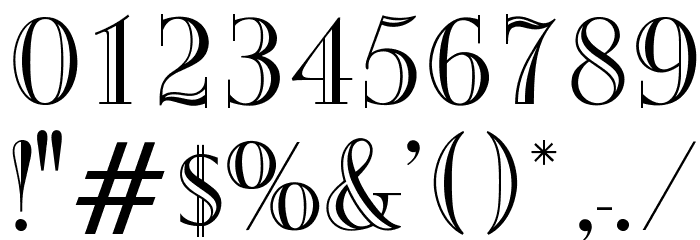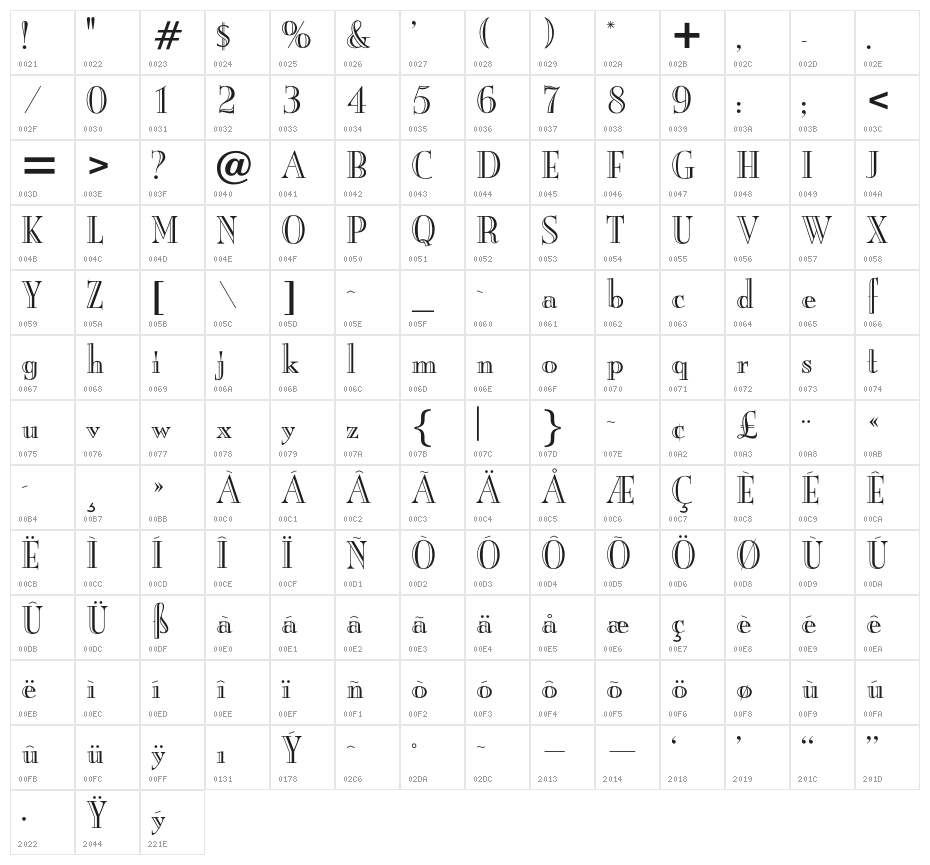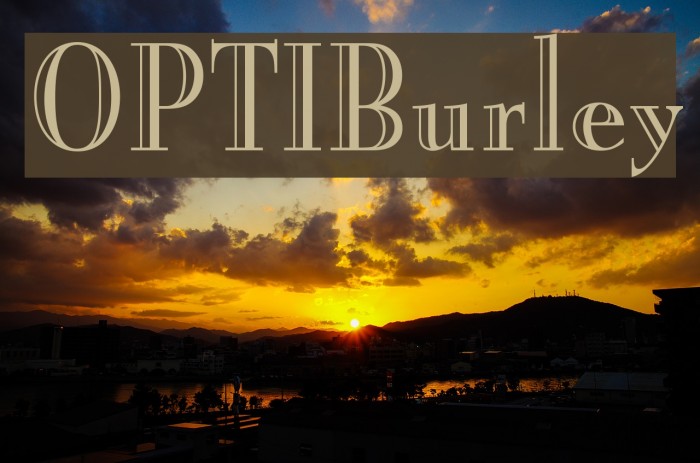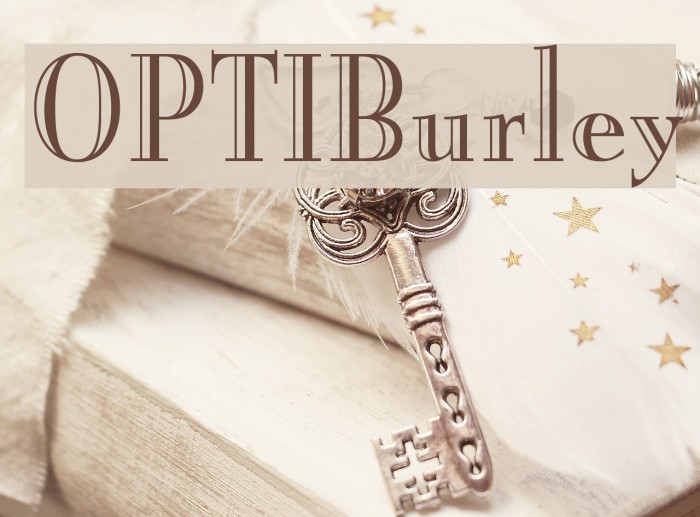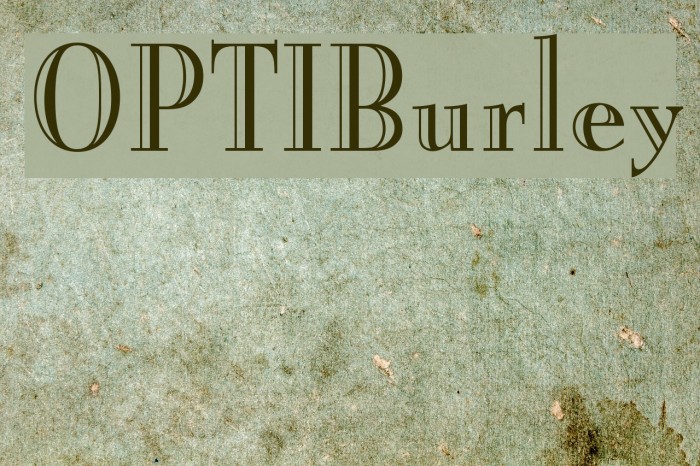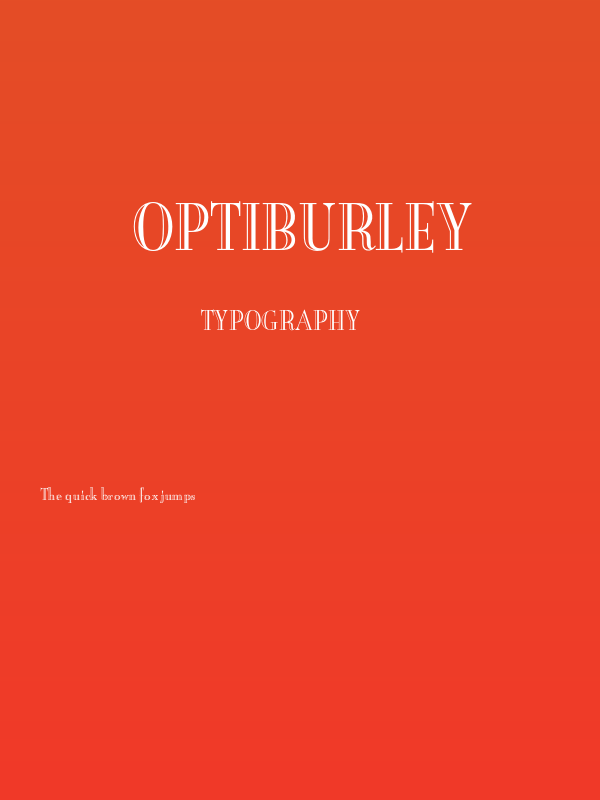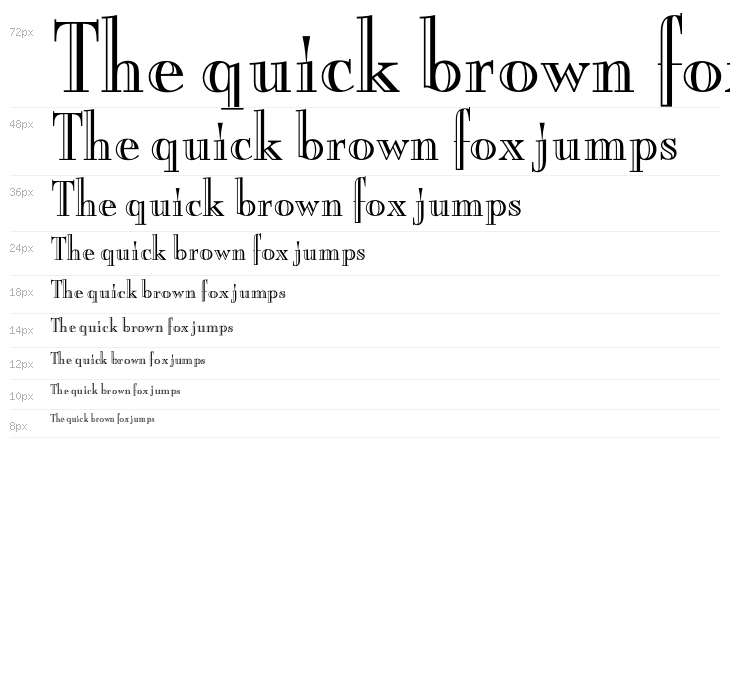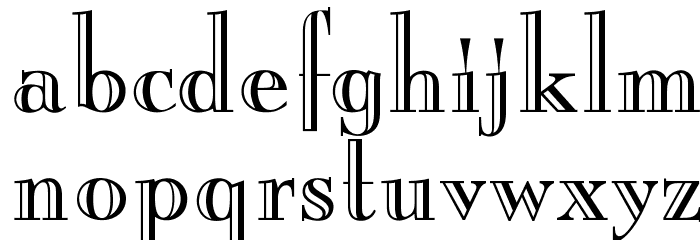
OPTIBurley Font
OPTIBurley Description
This font features a distinctive blend of classic and modern elements, characterized by its elegant and elongated serifs. The uppercase letters exhibit a refined and sophisticated style, with vertical stress and high contrast between thick and thin strokes. The lowercase letters maintain a consistent design, complementing the uppercase with their own unique flair. The numerals are bold and clear, ensuring readability while maintaining the font's overall aesthetic. Special characters are thoughtfully designed, adding a touch of elegance to punctuation and symbols. This font's unique style makes it suitable for a variety of creative applications.
| Use Case | Headlines, Logos, Editorial design |
| Proposed Projects | Ideal for luxury branding, editorial design, invitations, and high-end product packaging. |